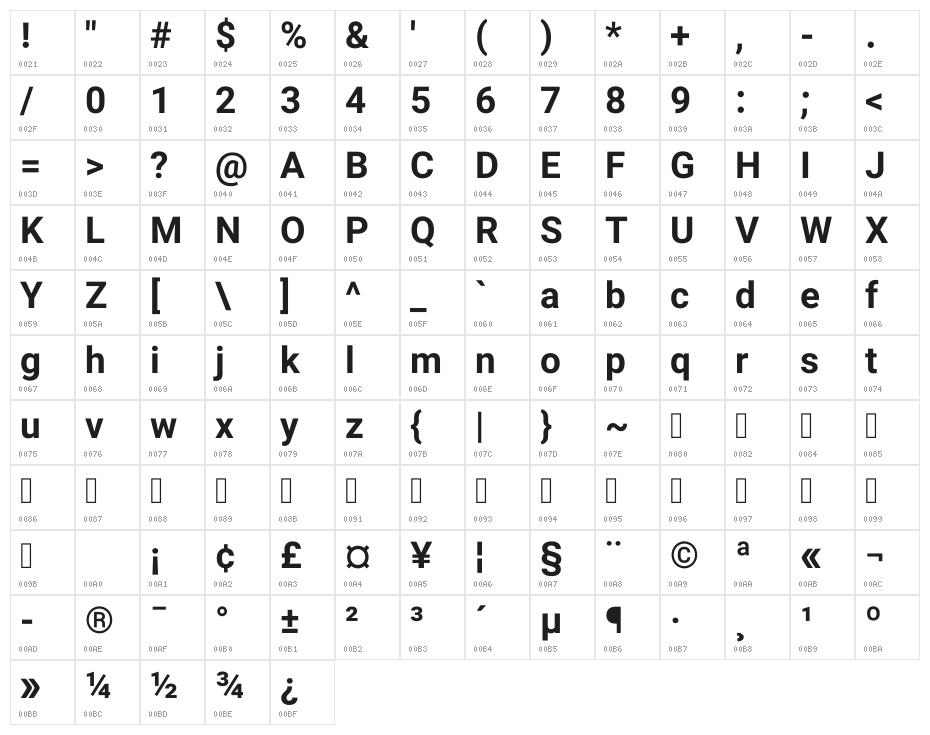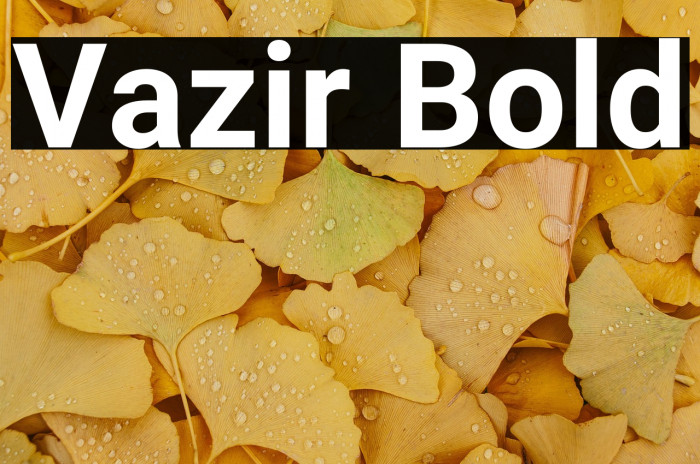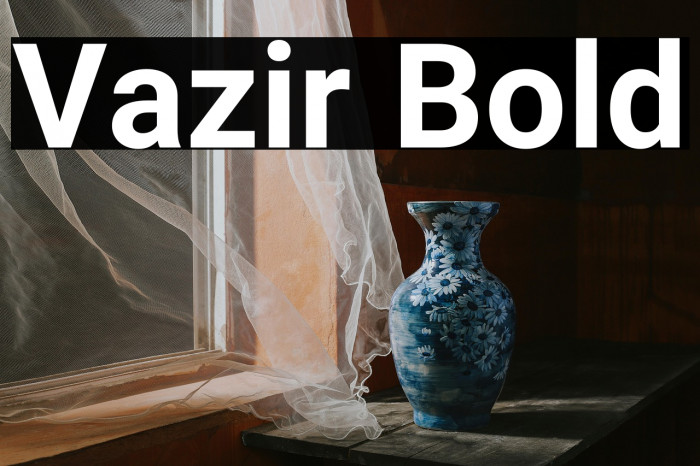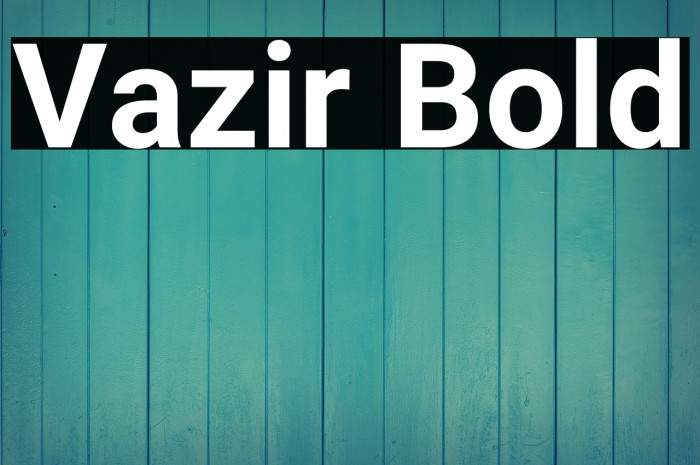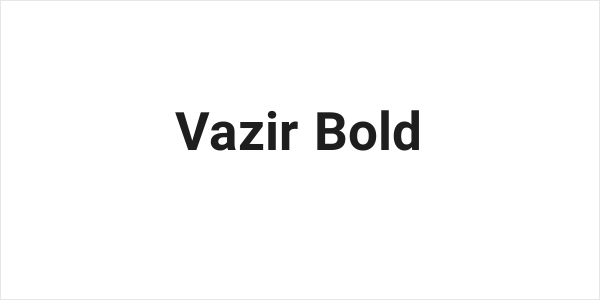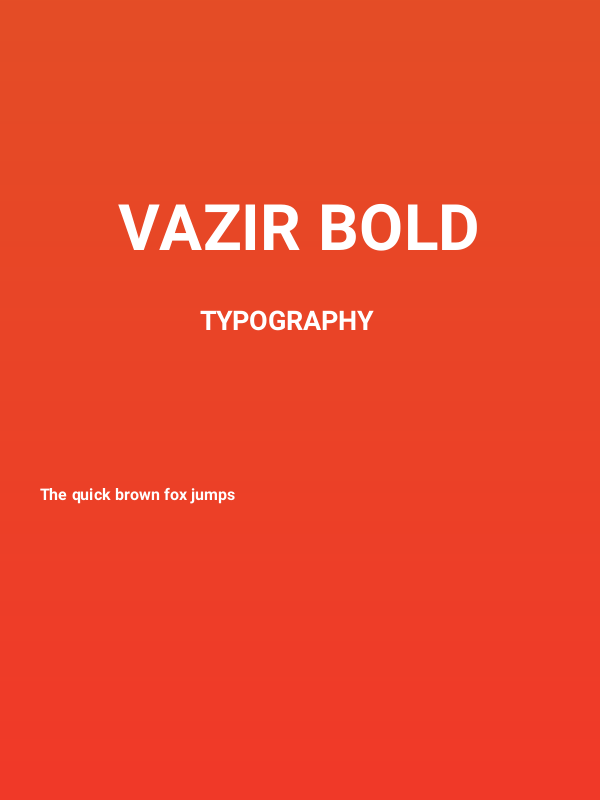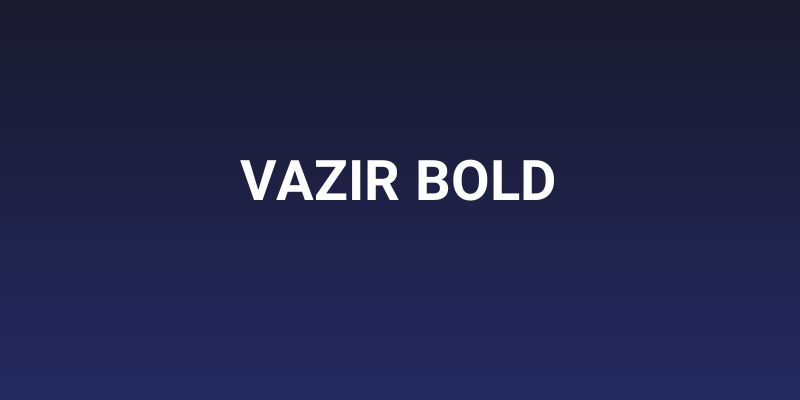
Vazir Bold Font
Vazir Bold Description
This font features a clean and modern sans-serif design with bold, uniform strokes that provide excellent readability. The characters are well-proportioned, with a consistent weight that enhances its bold appearance. The uppercase and lowercase letters maintain a harmonious balance, while the numerals are clear and distinct. Special characters are included, offering versatility for various applications. The overall style is straightforward and professional, making it suitable for a wide range of design projects.
Proposed ProjectsIdeal for branding, headlines, posters, and digital content where clarity and impact are essential.